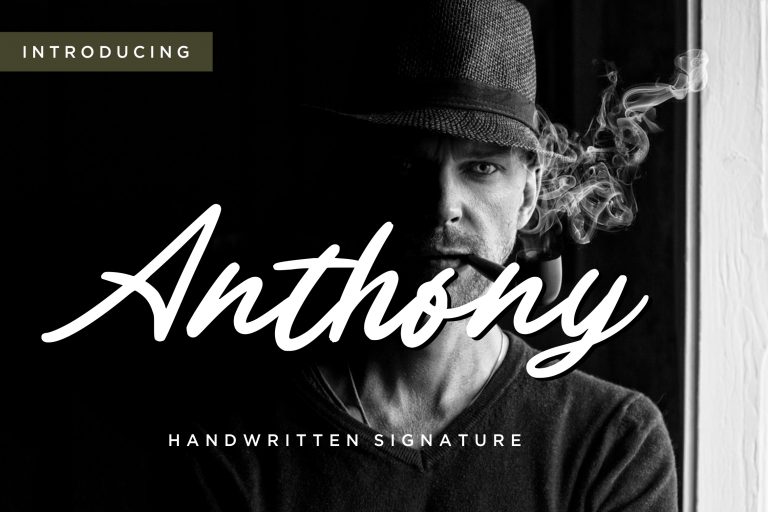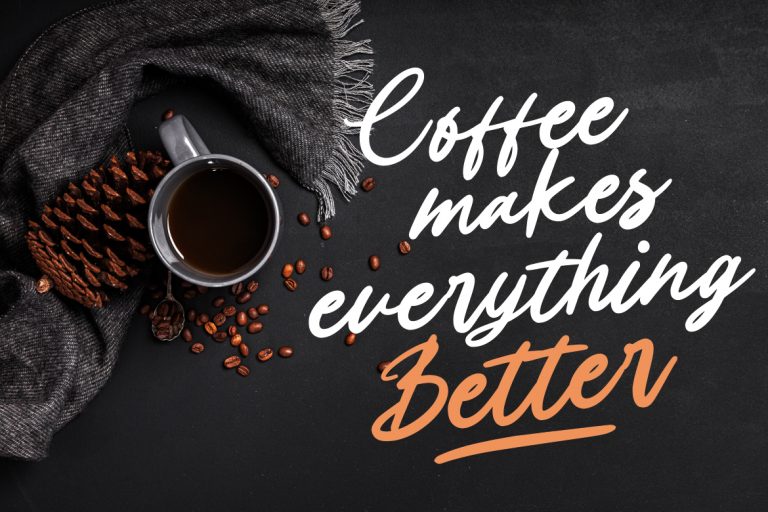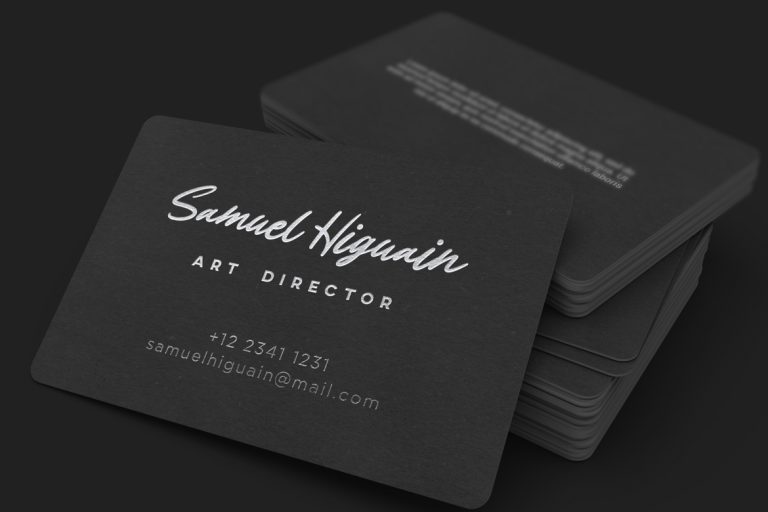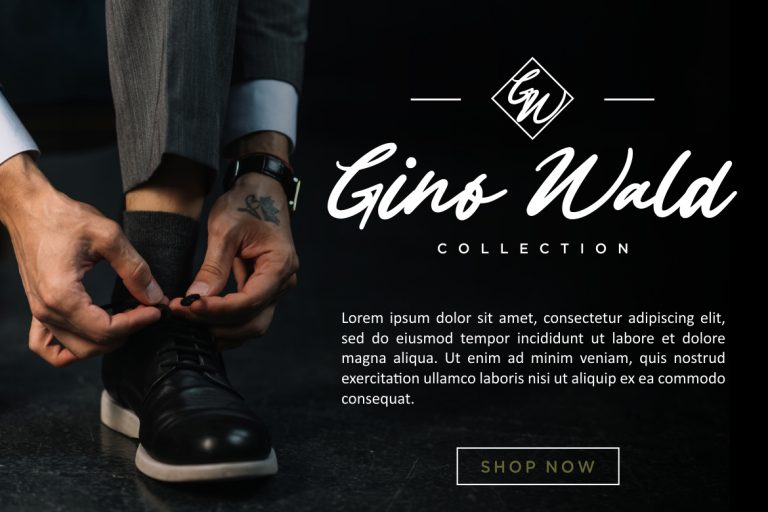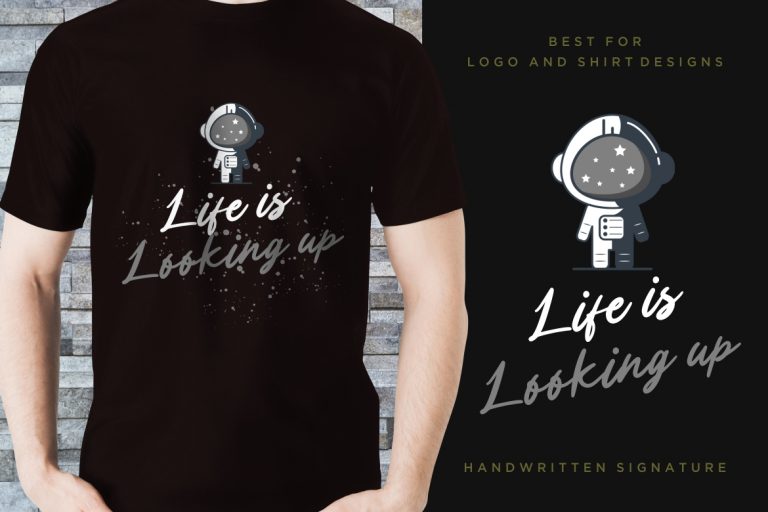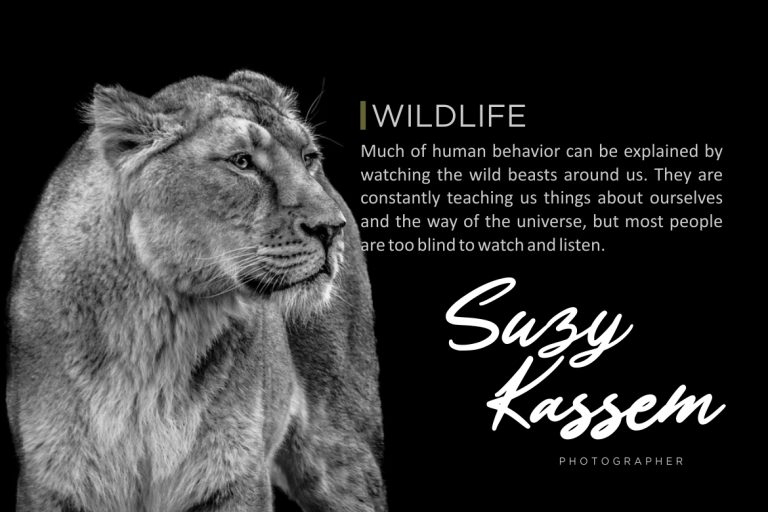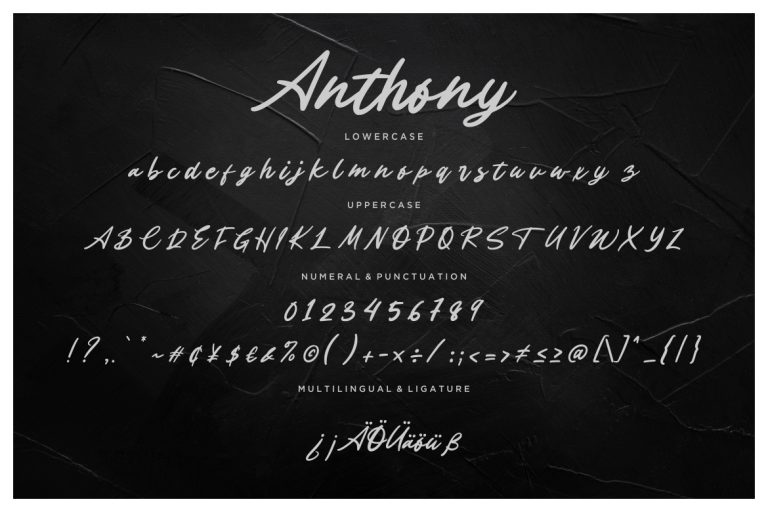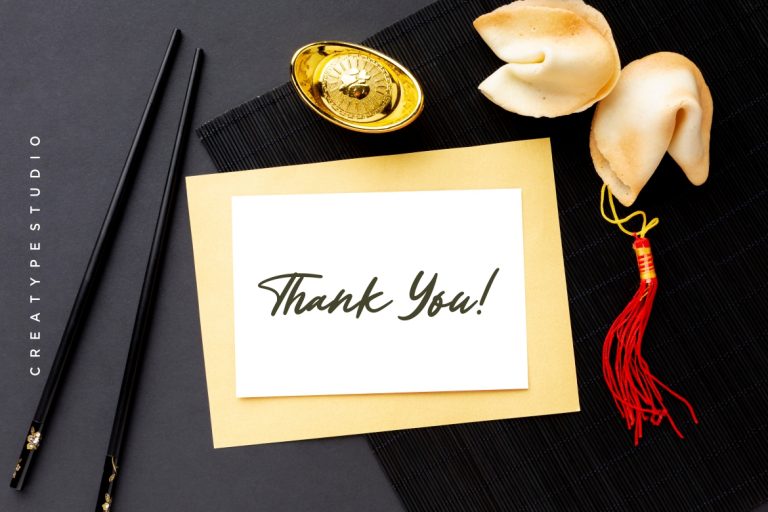
Anthony is a handwritten script font with signature style that make your latest project awesome.
Anthony is perfect for branding projects, logo, wedding designs, social media posts, advertisements, product packaging, product designs, label, photography, watermark, invitation, stationery and any projects that need handwriting taste.
- Fonts include multilingual support for; ä ö ü Ä Ö Ü ß ¿ ¡
Anthony Handwritten Signature